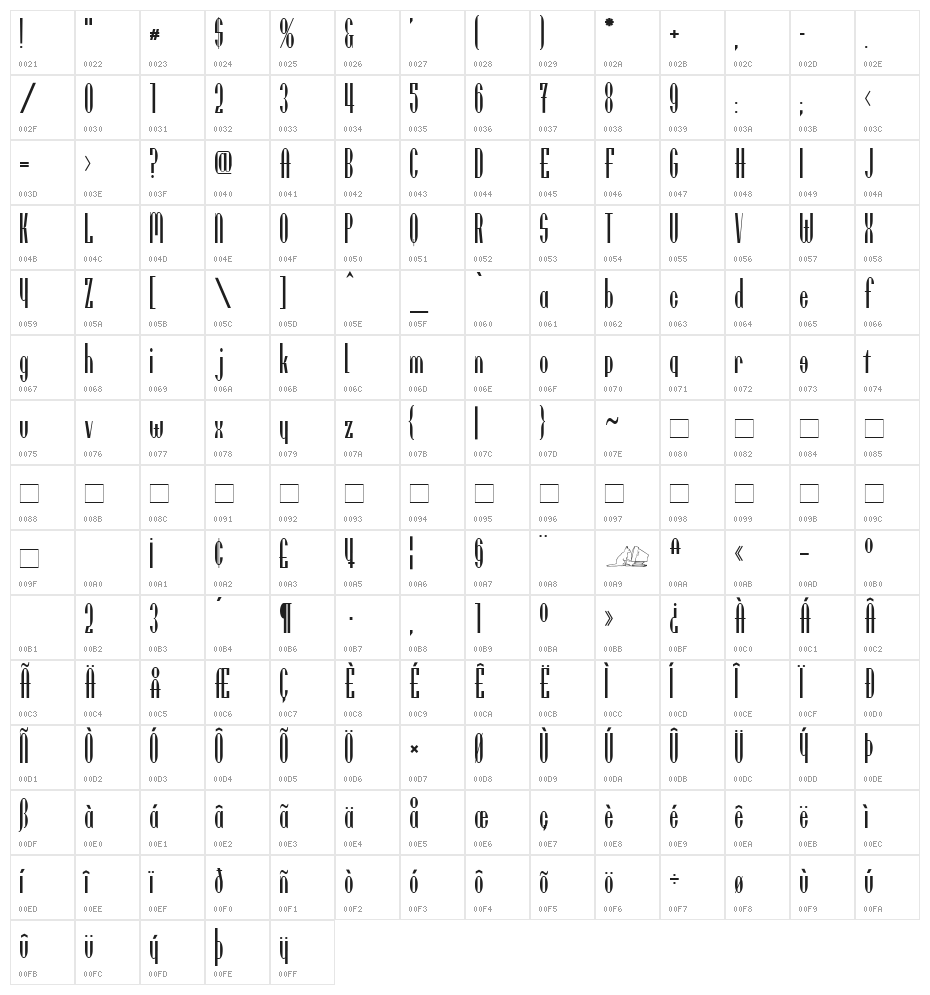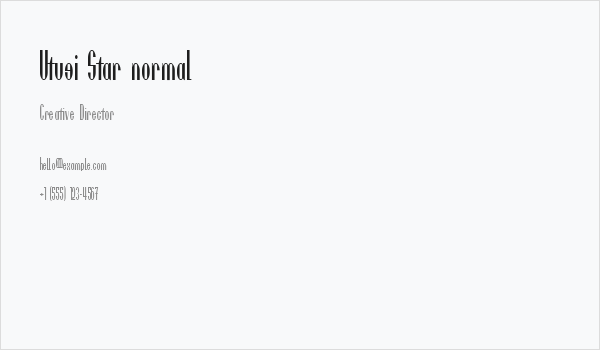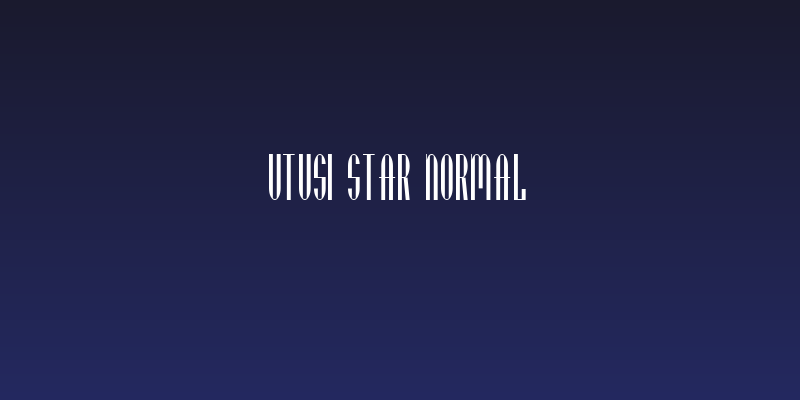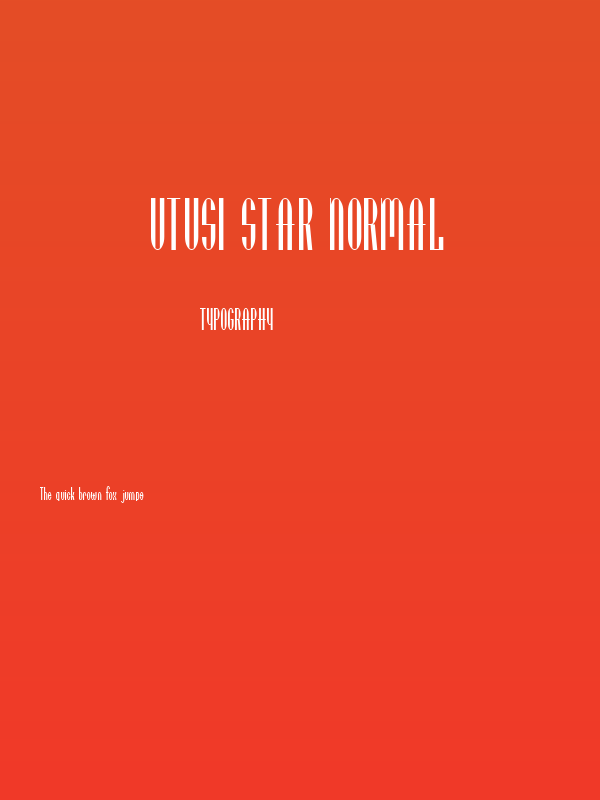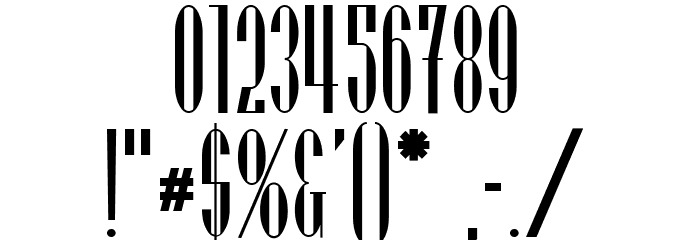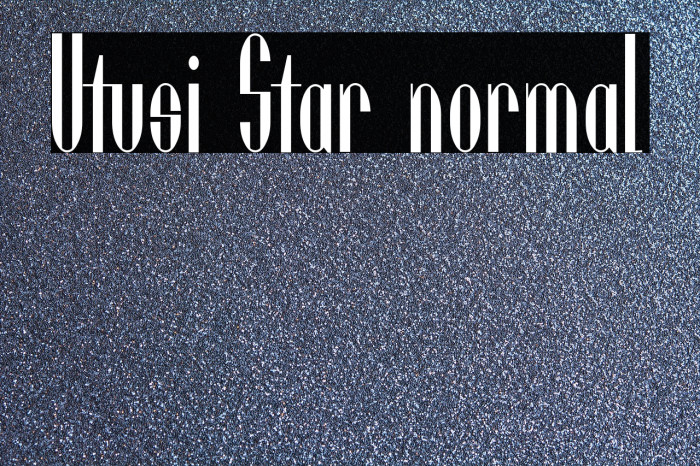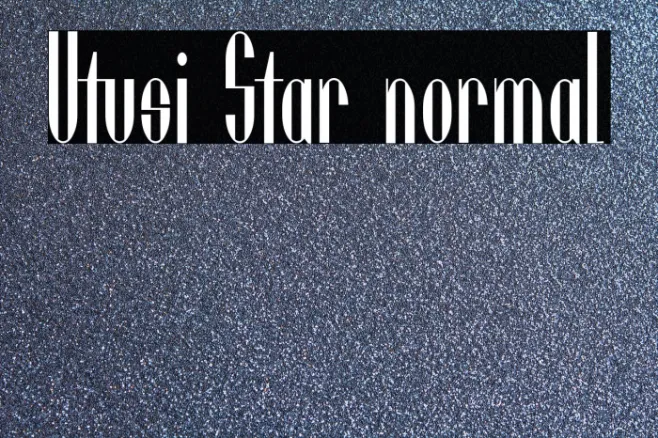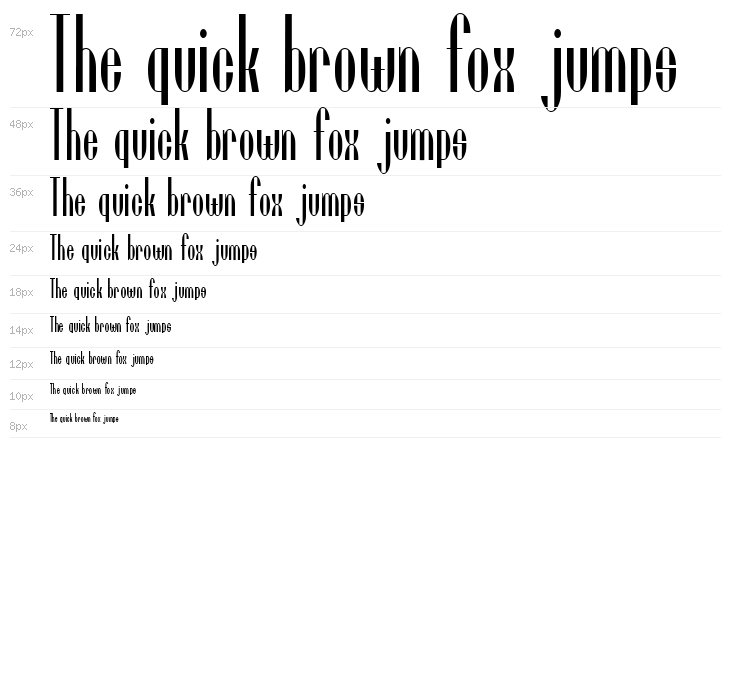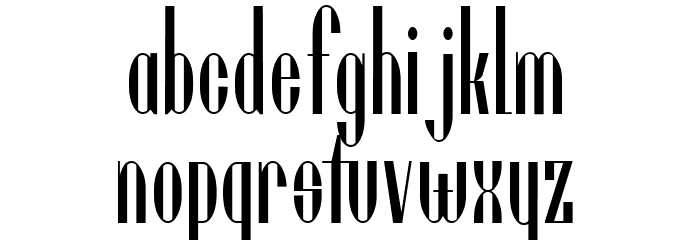
Utusi Star normal Font
Utusi Star normal Description
This font features a striking and bold design with tall, narrow characters that create a dramatic and impactful appearance. The vertical emphasis is pronounced, giving it a modern and stylish look. The uppercase and lowercase letters maintain a consistent height, enhancing the uniformity and sleekness of the typeface. The numerals and special characters are designed to match the overall aesthetic, ensuring a cohesive visual experience. The font's unique style makes it suitable for eye-catching headlines and branding projects where a strong visual presence is desired.